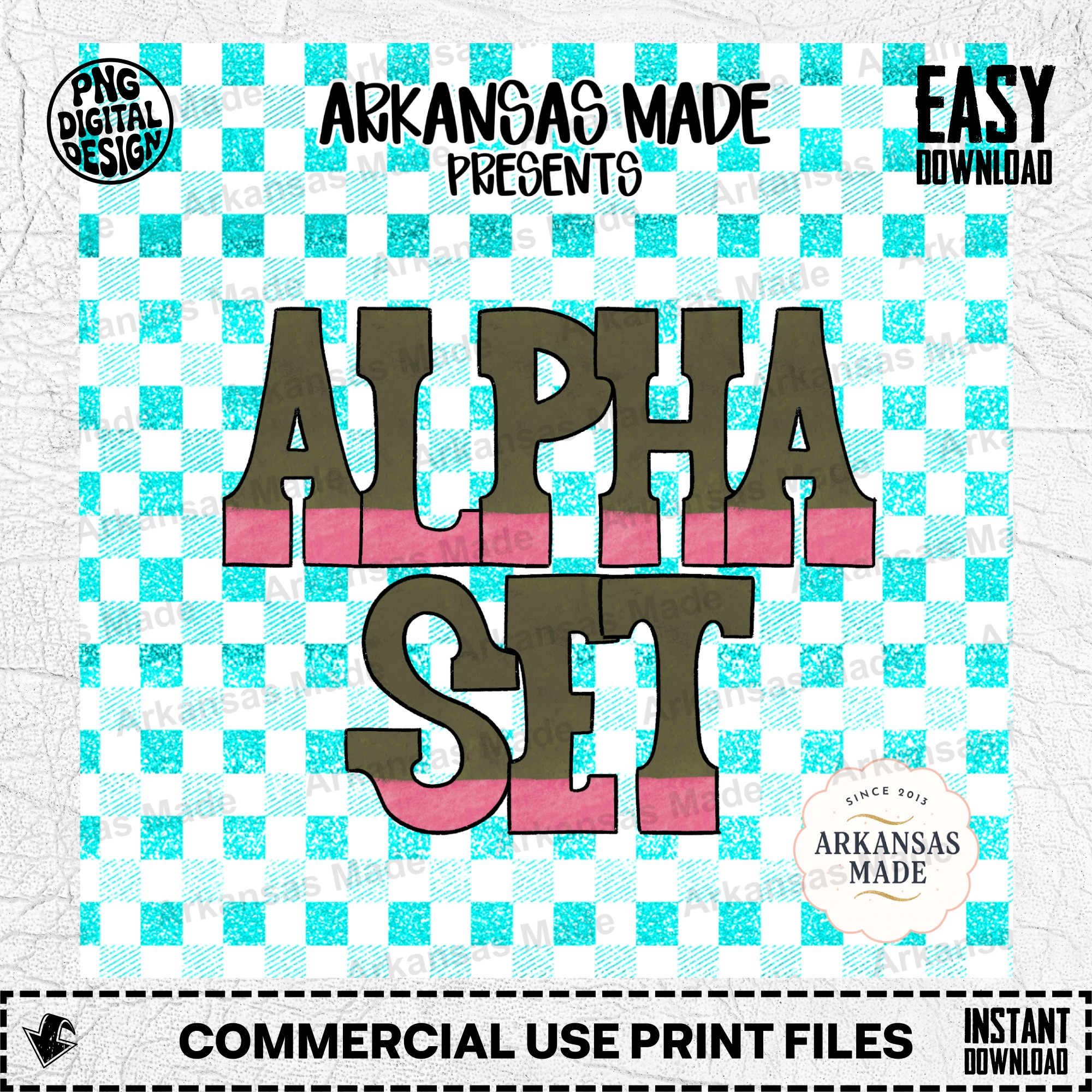
Chunky Distressed Alphabet PNGs, Two-Tone Olive Pink Letters, Boho Retro Sublimation Font Pack, Digital Download Alpha Set for Crafters &
Chunky Distressed Alphabet PNGs for sublimation and digital design. This two-tone olive green and pink alpha set is perfect for personalized projects and gifts. Embrace a trendy boho-western vibe with this unique font, featuring a cool distressed print effect and bold black outlines. Ideal for DIY crafters, small business owners, and designers looking to create custom t-shirts, tumblers, nursery art, or signage. Perfect for adding a personalized touch to baby shower gifts, birthday presents, or unique home decor items.